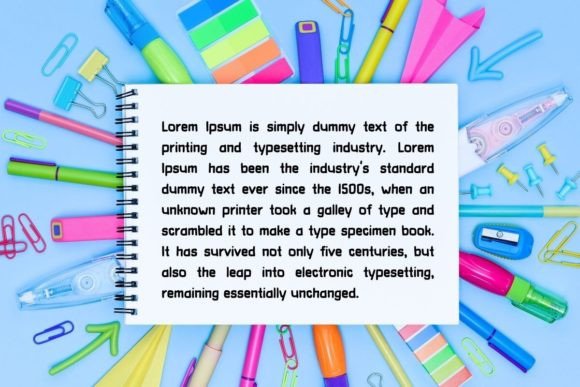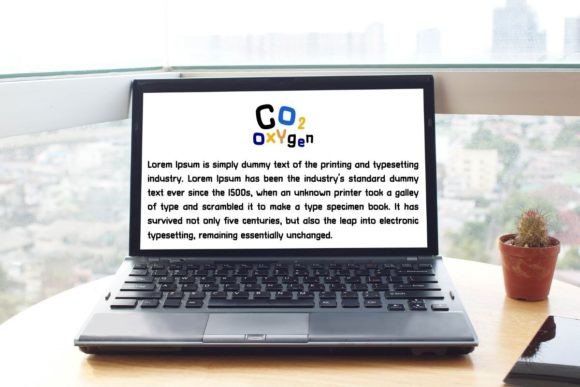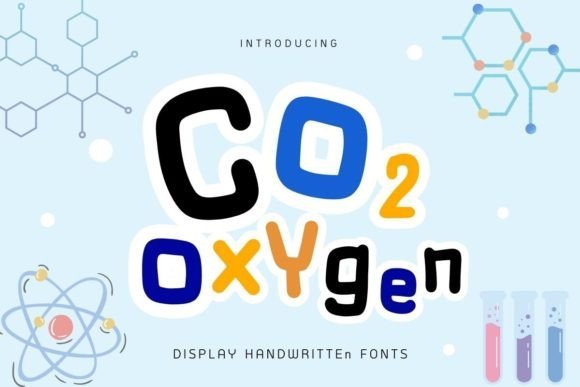
Introduction to Co2 Oxygen Font
Co2 Oxygen is a cute display font with groovy and fun vibes.
This font is a special font for the science theme This font is the adorable font for a design that needs a cute , such as science design, kids design, birthday invitation, summer design, t-shirt design, crafting, sticker, sublimation, and many more.